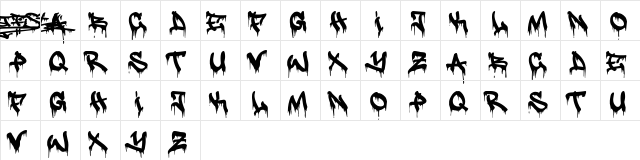
justfist2 Regular Font Preview
justfist2 Regular
justfist2 Regular Font Details
Design Context for justfist2 Typeface
justfist2 is a composed and adaptable typeface that performs quietly and consistently across a wide range of design contexts.